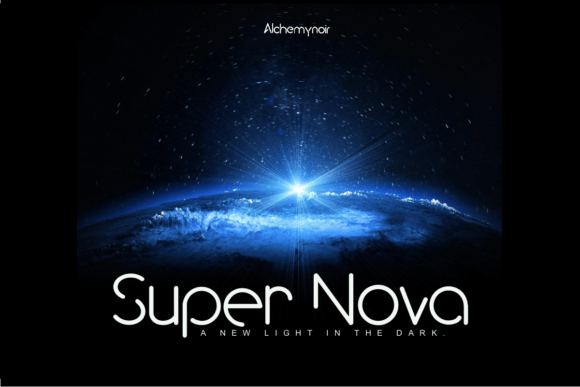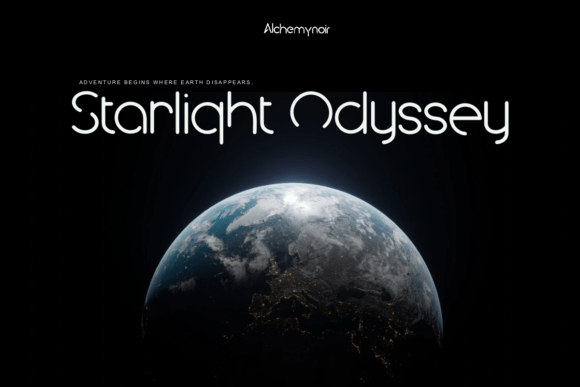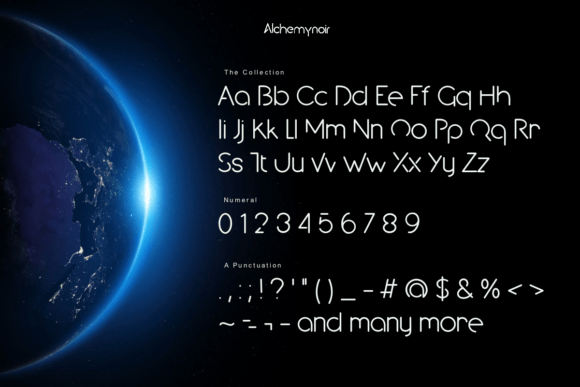
Unlock the Cosmic Charm of AstroPulse Font
As a designer, have you ever been struck by the perfect fusion of creativity and technical precision? That ‘aha’ moment when you stumble upon a font that elevates your entire design project? For many of us, it’s a dream come true. And, if you’re anything like us, you’ll fall head over heels for the mesmerizing AstroPulse Font.
This breathtaking display font is an artist’s delight, offering a world of possibilities for branding, poster creation, garment personalization, and merchandise styling. With its icicle-inspired, handcrafted variations, AstroPulse Font is the perfect addition to your design toolkit. Whether you’re a seasoned pro or just starting out, this extraordinary font will take your creative projects to new heights, exuding a characteristic charm that’s uniquely yours.
Astropulse Font Key Features
- Font Family: Astropulse Font is a unique, modern sans-serif font designed for digital use.
- Unique Characteristics: Astropulse Font features a distinctive, futuristic aesthetic with clean lines, rounded edges, and a balanced x-height, making it ideal for digital and print applications.
Astropulse Font Review
Overall, I think Astropulse Font is an interesting choice for designers looking to add a unique touch to their projects. ✨ The font’s cosmic theme is well-executed, and the variations in weight and style can help create a sense of depth and visual interest. ✨ The font is also highly customizable, which is great for designers who want to fine-tune their project’s look and feel.
However, there are a few limitations to consider. ⚠️ For one, the font may not be suitable for large blocks of text, as the irregularities in the letterforms can make it difficult to read. ⚠️ Additionally, the font’s bold weights may be a bit too loud for some projects, so be careful when using them.
- Unique cosmic theme
- Variable weights and styles
- May not be suitable for large blocks of text
- Bold weights may be too loud for some projects
Overall, I think Astropulse Font is a great choice for designers who want to add some visual flair to their projects. Just be sure to use it judiciously and consider the potential limitations.
The Astropulse font is perfect for:
- Science fiction and futuristic designs
- Space-themed presentations and reports
- Technology and innovation branding
- Creating a sense of excitement and energy in your designs
To get the most out of the Astropulse font, try combining it with other futuristic elements, such as neon colors, space-inspired graphics, and abstract shapes.